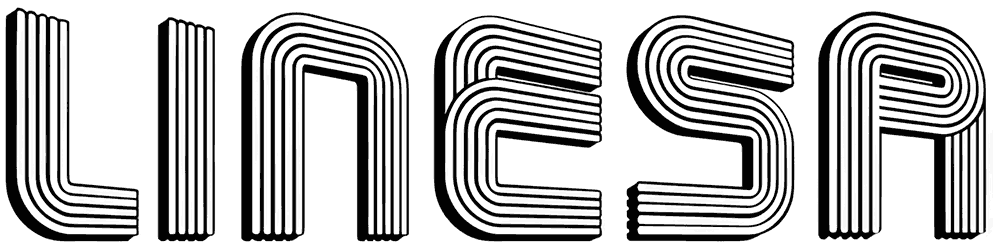
Linesa Font
Are you feeling so creative today? Then the Linesa font can keep your design standing out. This groovy font uses a striped pattern to give an air of distinction to its 3D and strong lines. This groovy font can be integrated into brand ads, industrial web page design, and wall murals. Look carefully, this font without lowercase letters comes with limitless design possibilities. Check it out.